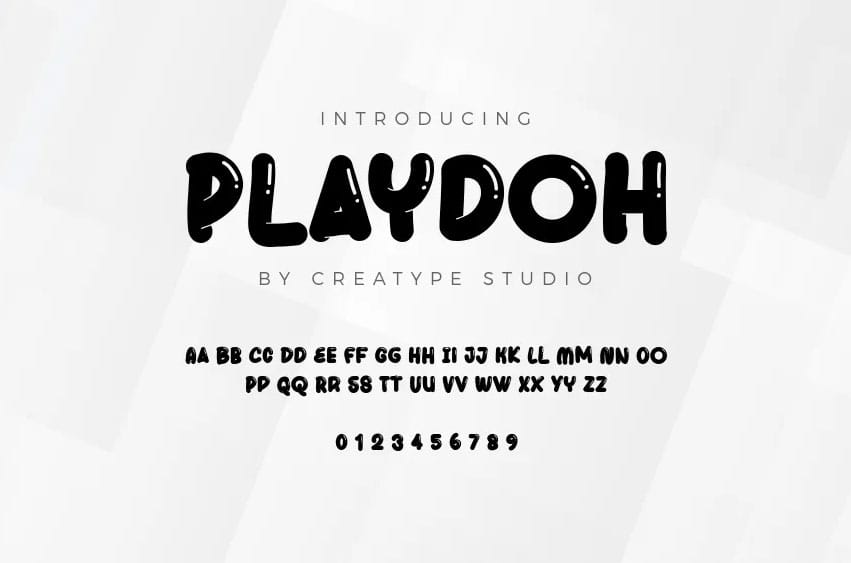
Playdoh Font is a rounded, hand-crafted font with a glossy, three-dimensional finish that conveys friendliness and charm. Its smooth, plump forms and soft curves give off a playful vibe, perfect for fun and approachable designs.
The shiny effect adds a hint of polish, making it ideal for kid-friendly projects, quirky branding, or anything in need of a bold and bubbly tone. Each character is crafted with cheerfulness and uniqueness, adding joy and warmth to any design. Great for logos, posters, and playful headlines, Playdoh font brings a lighthearted touch full of personality.